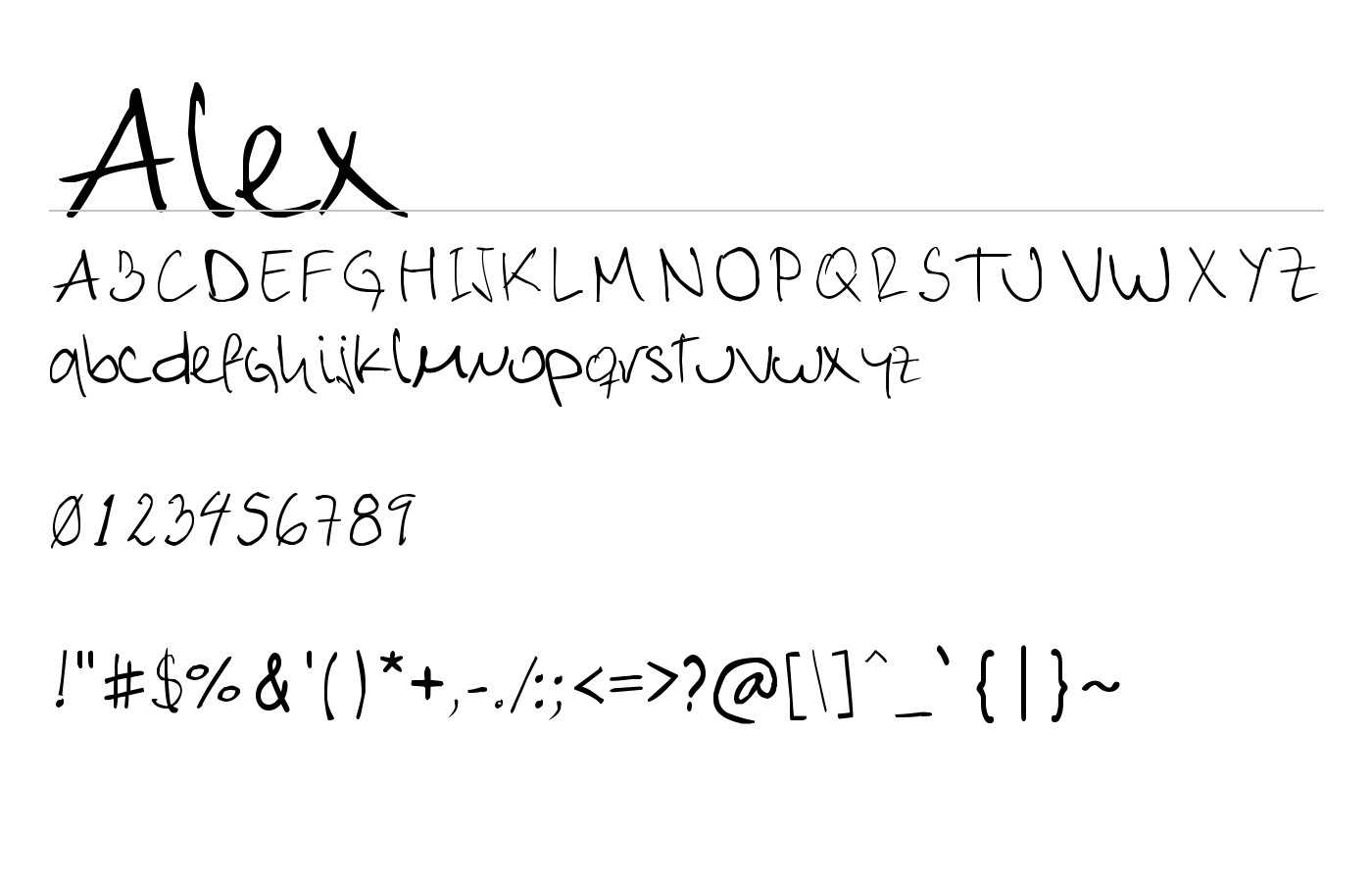
Alex Font is a casual and playful handwritten typeface with a light to regular weight and a lively, organic stroke style that mimics natural penmanship. Its irregular letterforms and varied line thickness give it a friendly, informal feel, making it perfect for creative projects, personal branding, or designs that seek a warm, approachable touch. This font works well in headlines, invitations, and artistic layouts where personality and a human touch are desired.
Alex Font